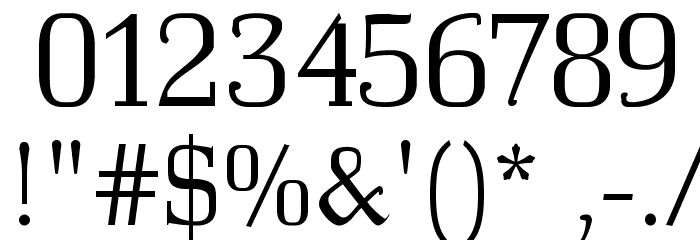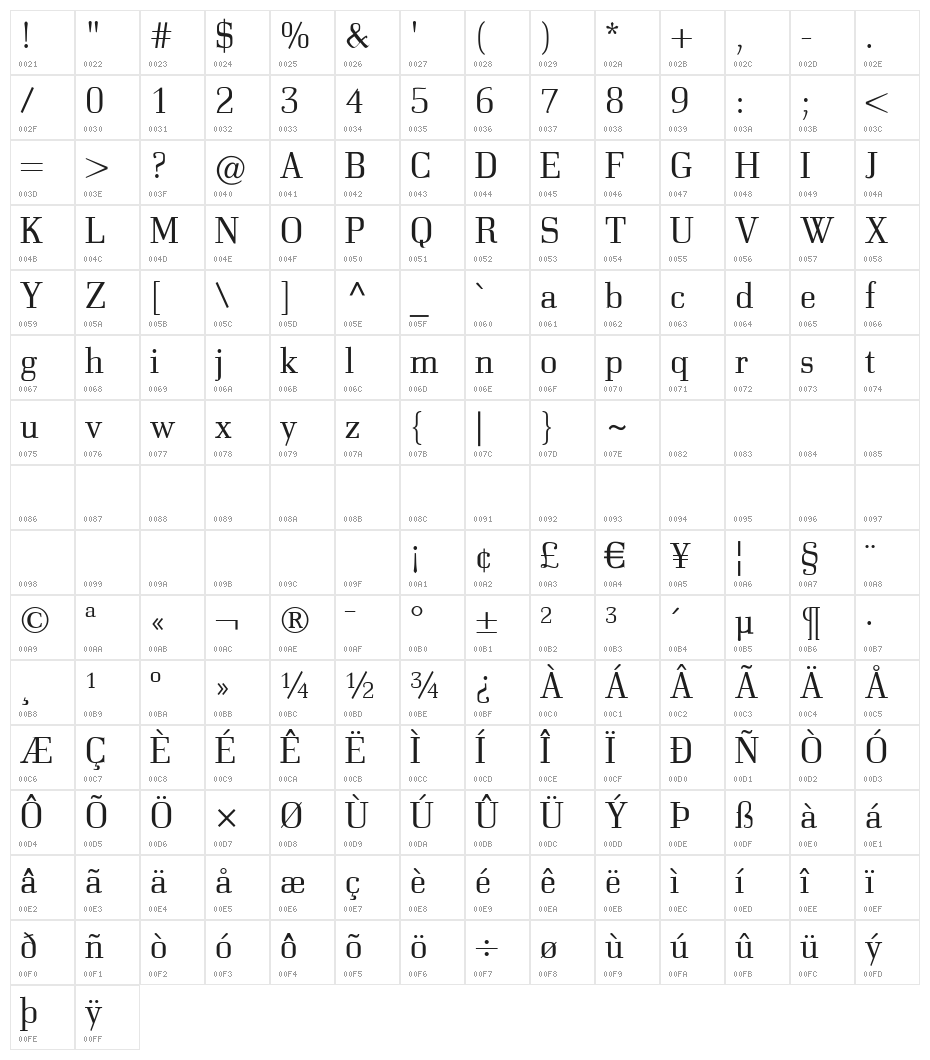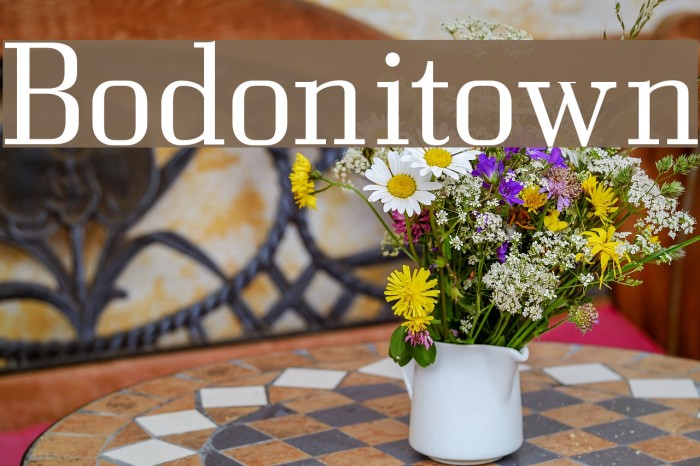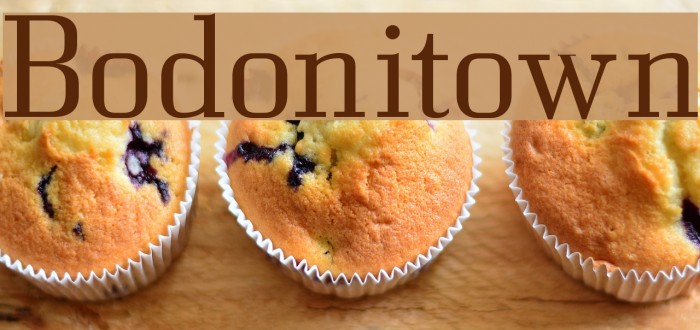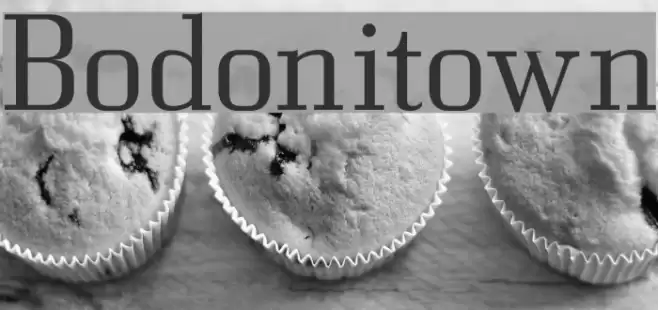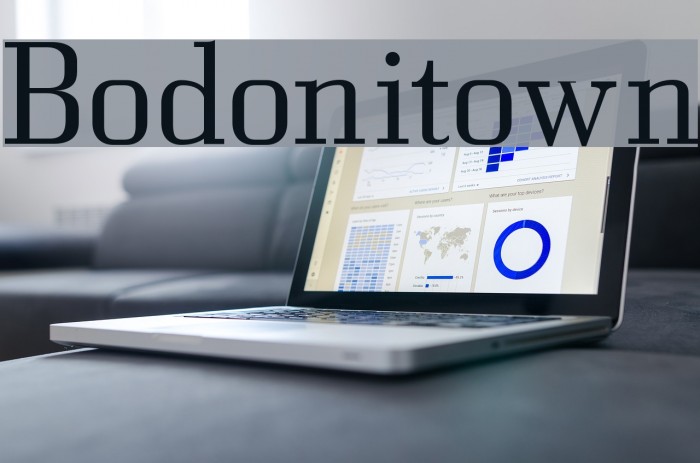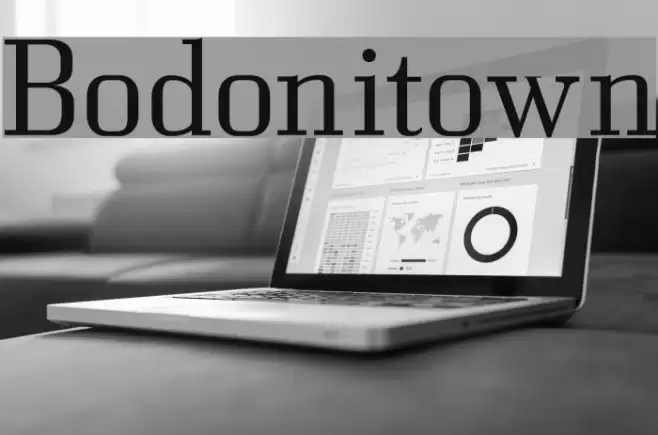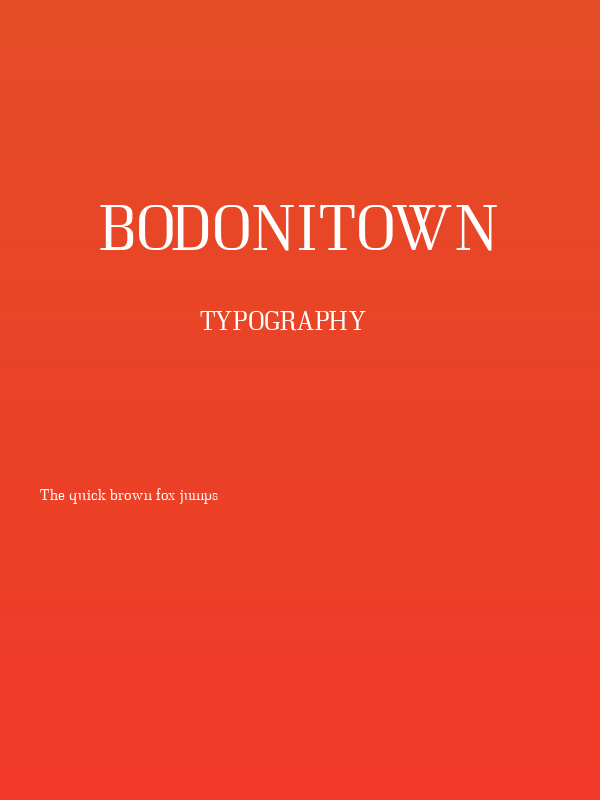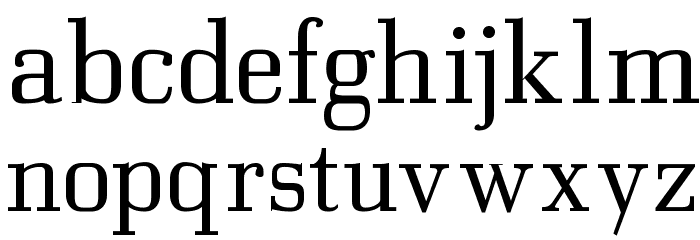
Bodonitown Font
Bodonitown Description
This font exhibits a classic serif style with high contrast between thick and thin strokes, reminiscent of traditional typesetting. The uppercase letters are elegantly proportioned, with a refined and sophisticated appearance. The lowercase letters maintain a consistent style, with distinctive serifs that enhance readability. The numerals are clear and well-defined, making them suitable for both display and body text. Special characters are thoughtfully designed, ensuring a cohesive look across all glyphs. This font's timeless elegance makes it versatile for various design applications.
| Proposed Projects | Ideal for editorial design, book covers, branding, and luxury product packaging. |